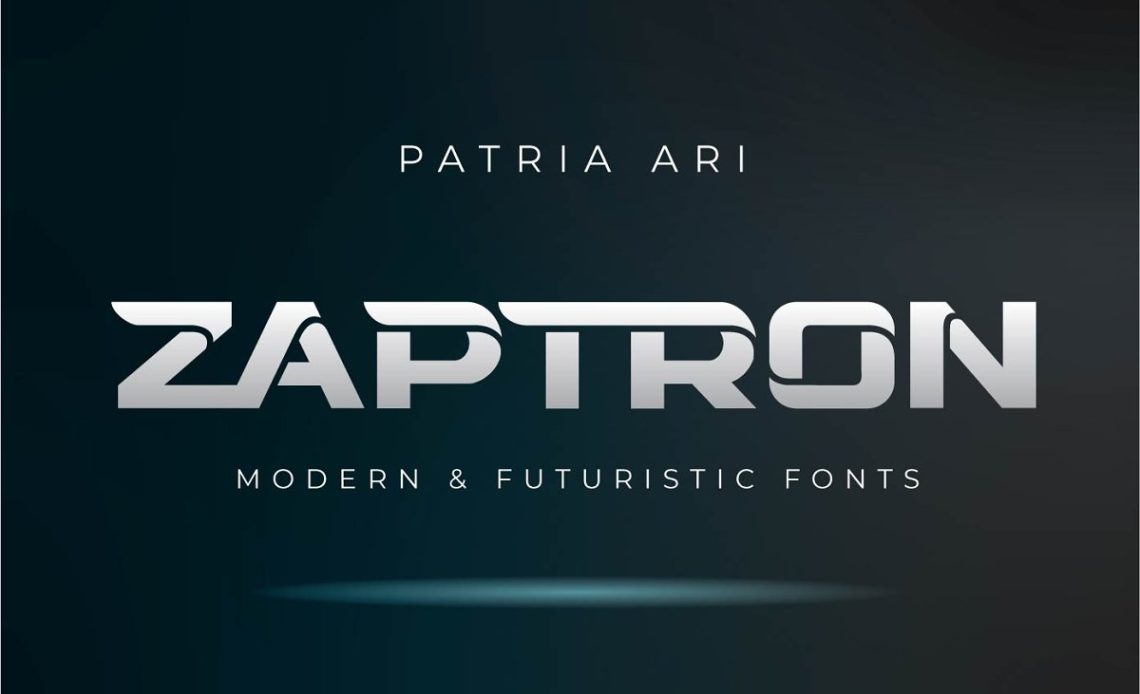
Attention all designers and creatives! Are you searching for the perfect font to elevate your next project? Look no further than Zaptron - Modern Fonts! Created by Patria Ari, this sci-fi inspired font family is the ultimate tool for taking your designs to the next level.
Zaptron boasts a unique combination of uppercase and lowercase letters with a variety of shapes that will catch your eye. With over 100 discretionary ligatures available, you can transform your text into a work of art simply by switching to uppercase letters. The possibilities for customization are endless!
This font is a must-have for anyone in the market for the best font for car vinyls. Its bold and modern aesthetic makes it ideal for use in the technology, construction, automotive, and heavyweight industries. Whether you're working on a logo or designing a product label, Zaptron's versatility is unmatched.